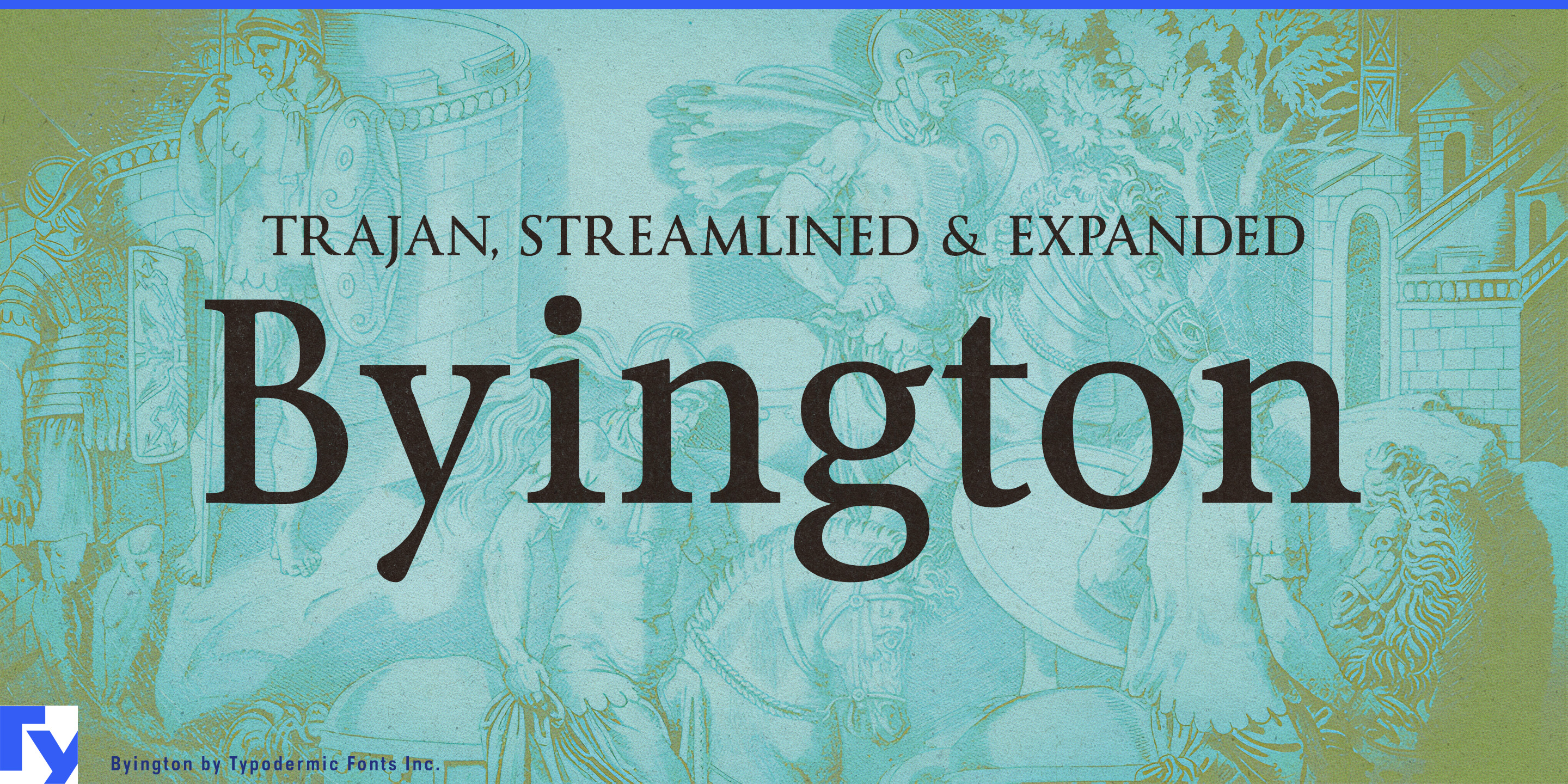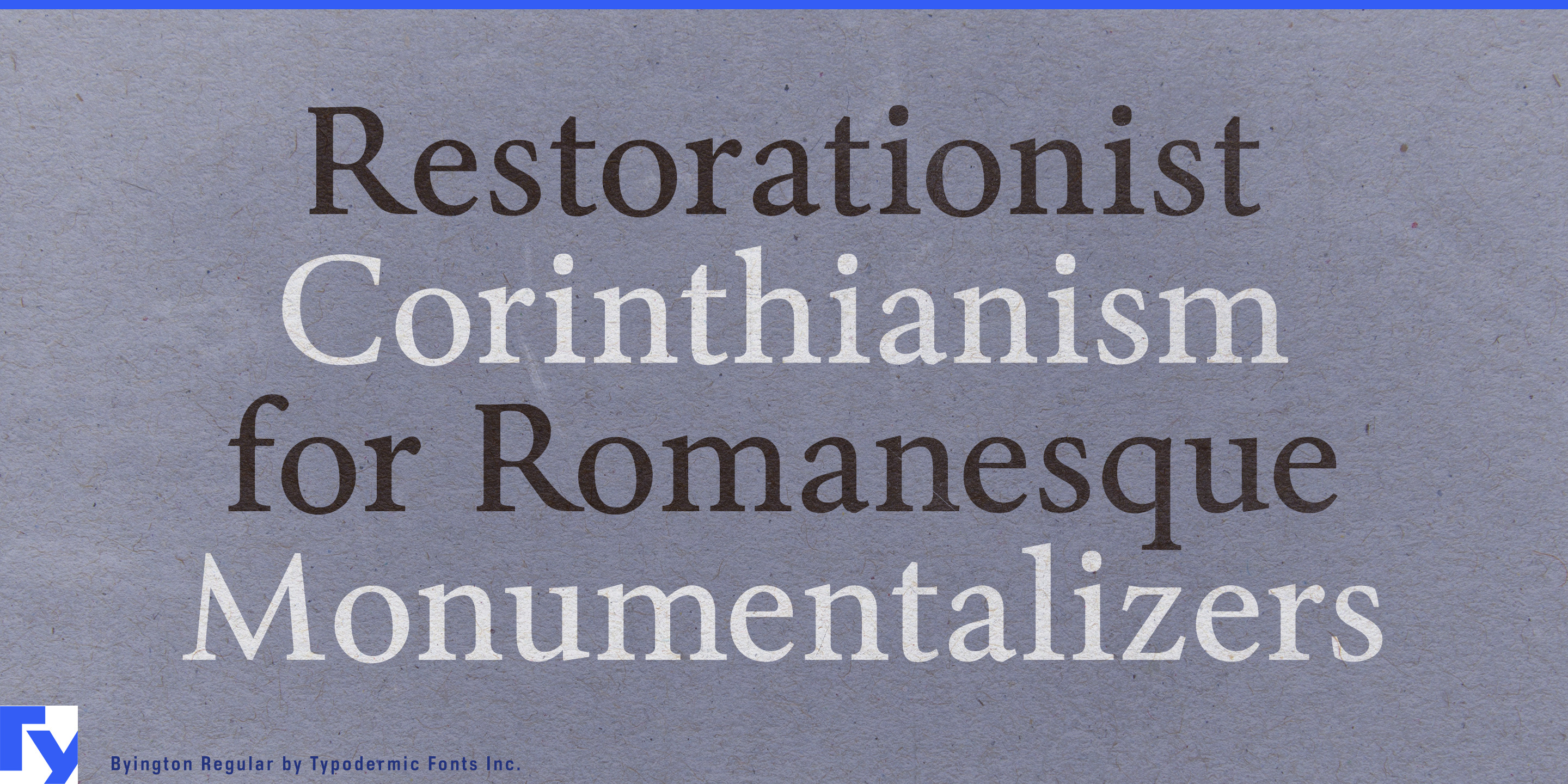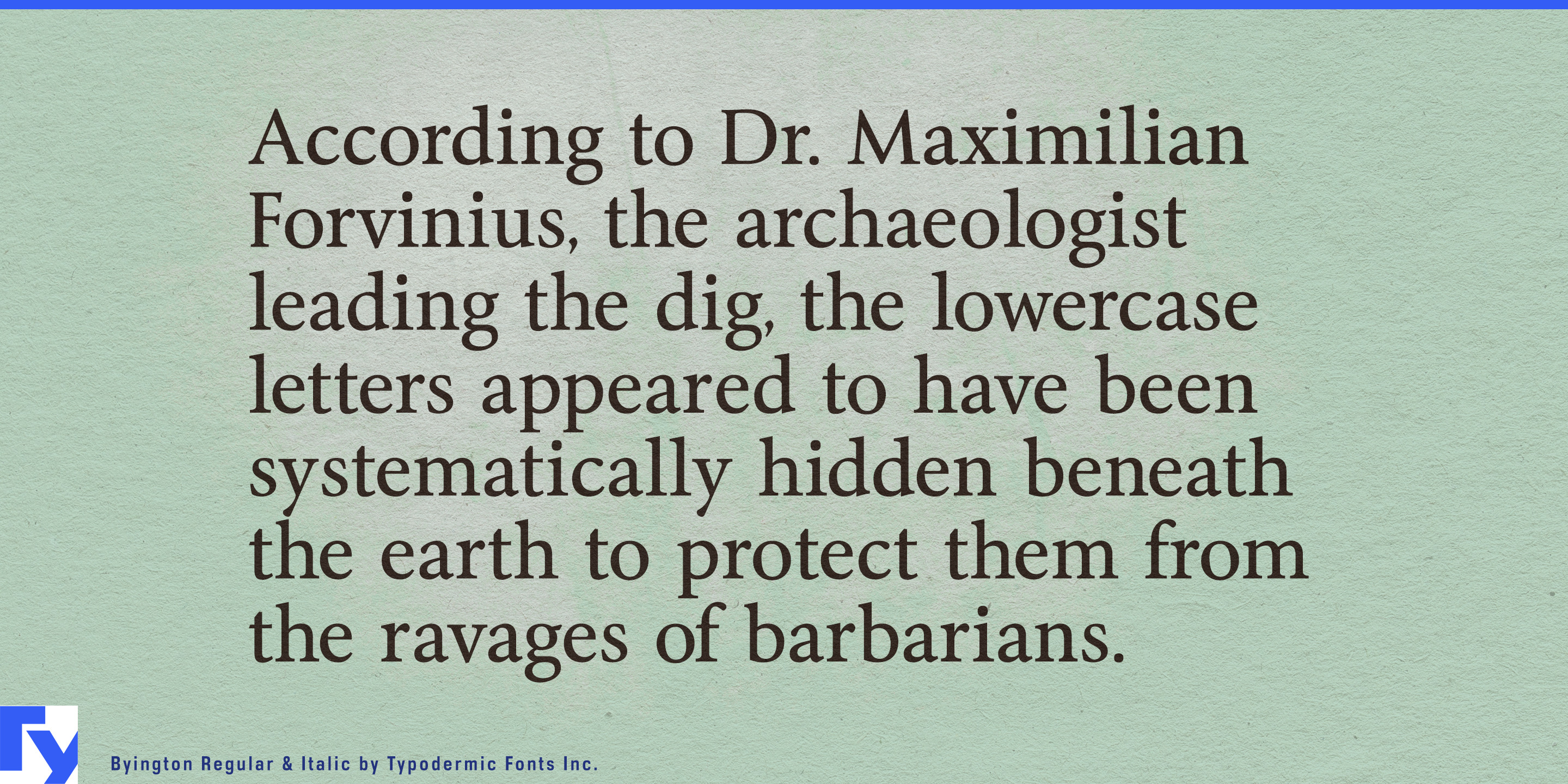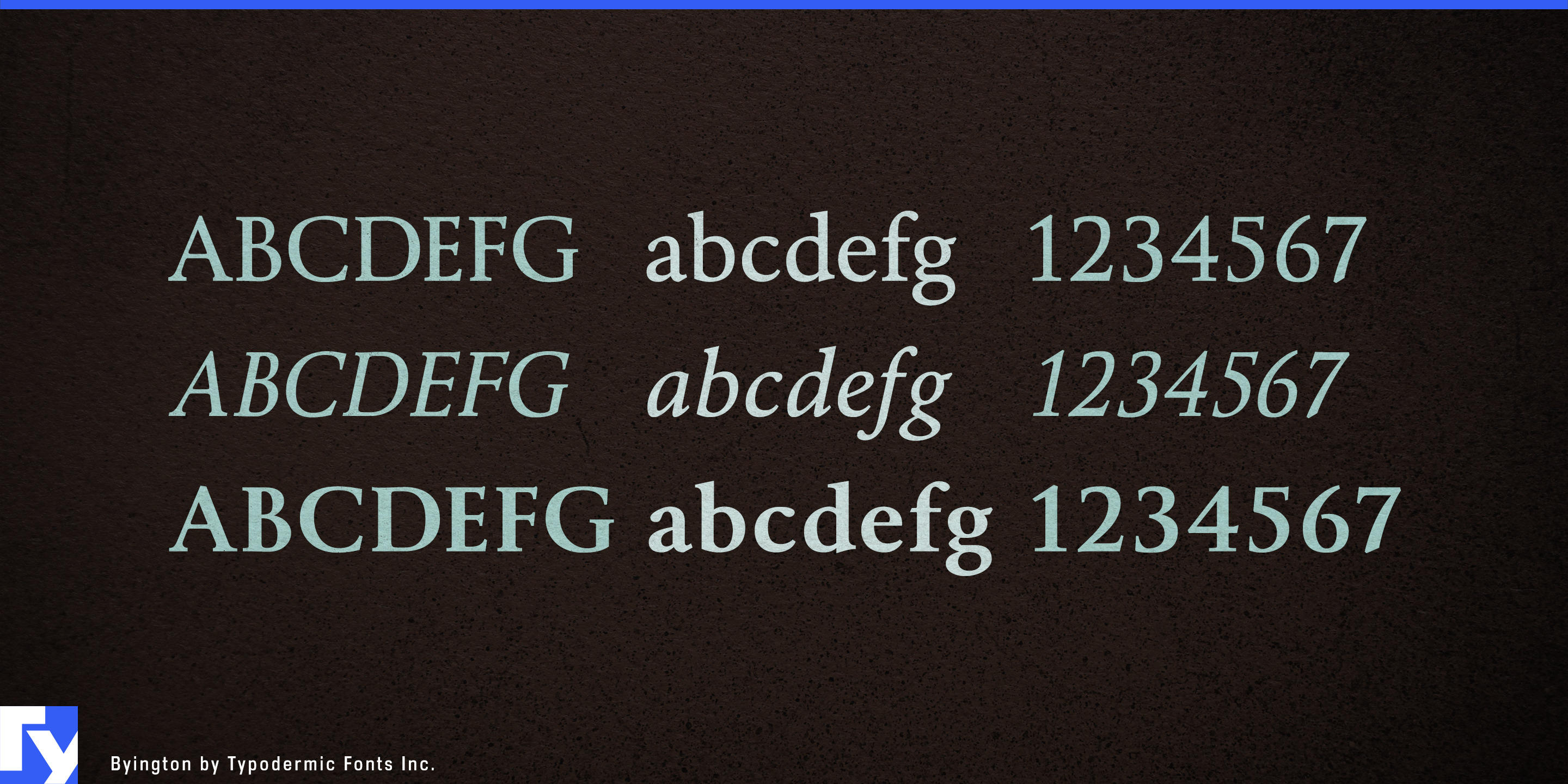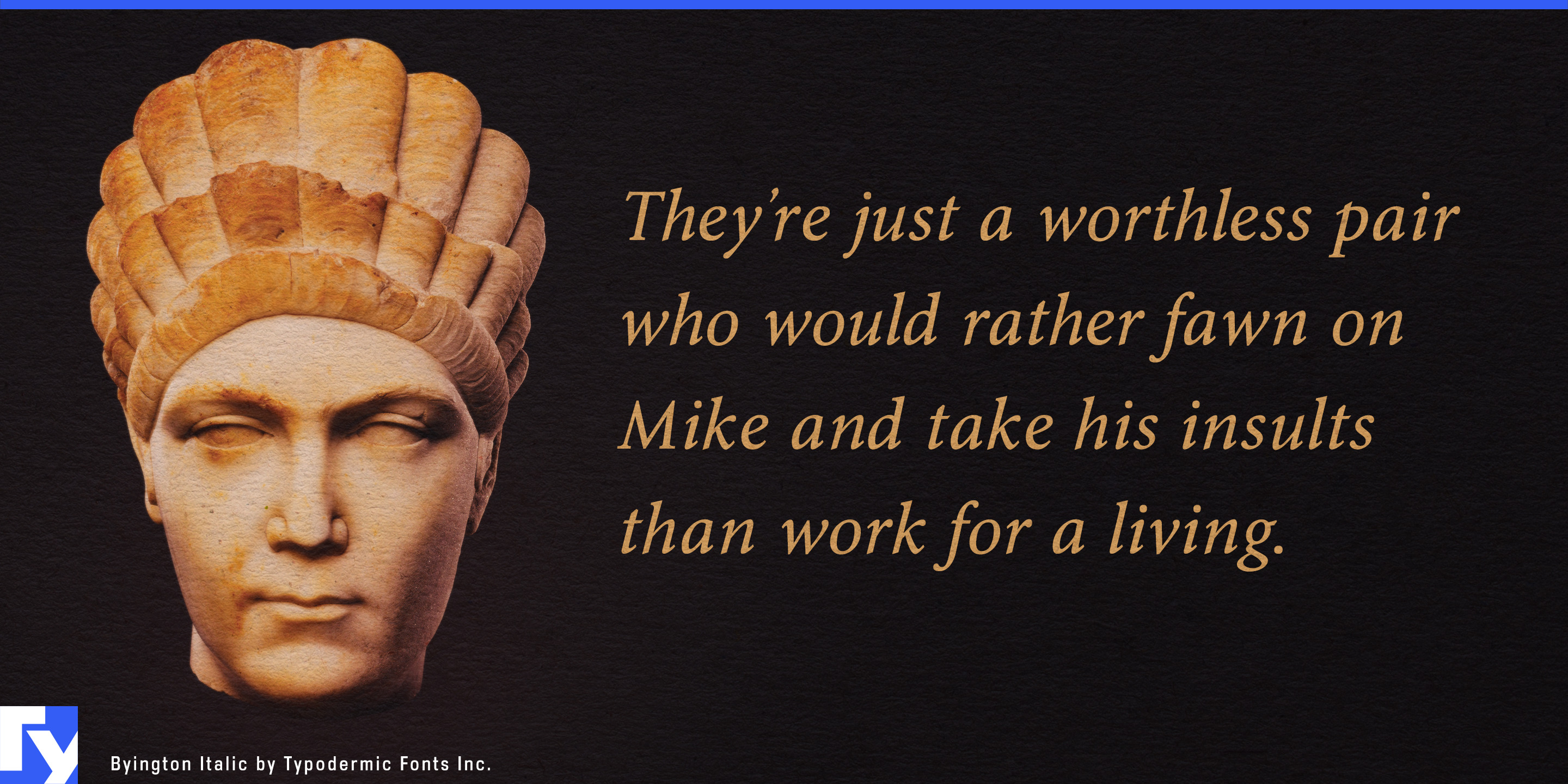
Byington
Byington is what happens when a designer’s impossible request gets an honest, elegant answer. For decades, creatives have been drawn to the authority of Trajan’s monumental capitals, only to hit a wall when the brief calls for lowercase. Trajan never had lowercase — until now.
Byington keeps the regal proportions, crisp serifs, and chiseled curves of classical Roman capitals, but pairs them with a custom-designed lowercase that feels as if it’s always belonged. Instead of borrowing from another font and hoping for harmony, Byington’s lowercase was crafted to match the weight, rhythm, and presence of its capitals. The result is a unified voice that works as effortlessly in a logo lockup or masthead as it does in subheads, pull quotes, and short paragraphs.
This isn’t a fragile stonecarver’s replica; Byington was engineered to thrive in the modern world. Sturdy serifs and sharpened transitions ensure it holds up in high-resolution print, video, and responsive web design. Its large x-height and clear detailing make it adaptable far beyond the movie poster aesthetic that inspired its roots. Available in Regular, Italic, and Bold, Byington offers the flexibility to build an entire typographic system from a single family. Extensive Latin language support means your message will carry the same timeless poise from Reykjavík to Rio.
Choose Byington when you want the gravity of Roman inscriptional lettering without the historical limitations. It’s the classical voice, reimagined for a world that needs both majesty and versatility.